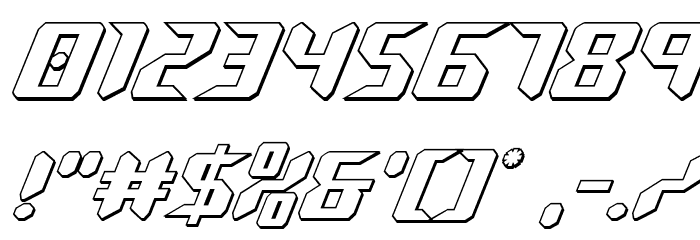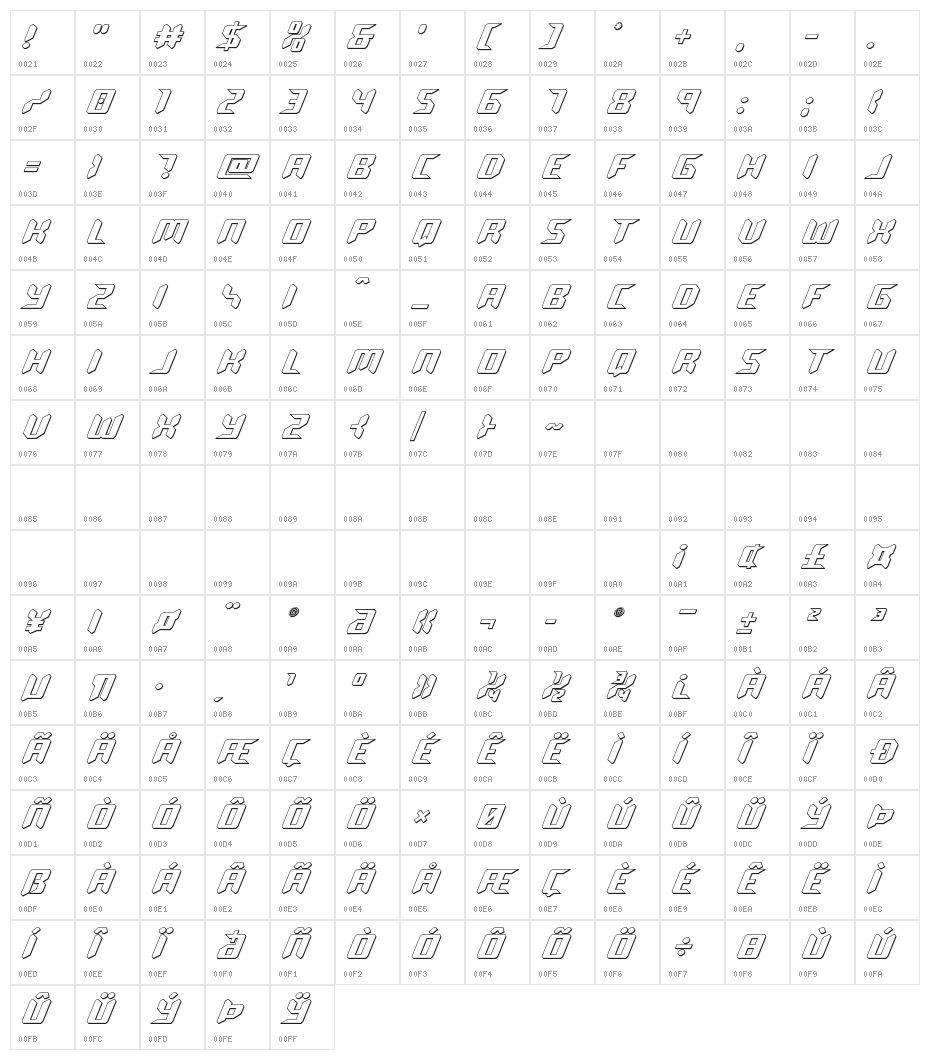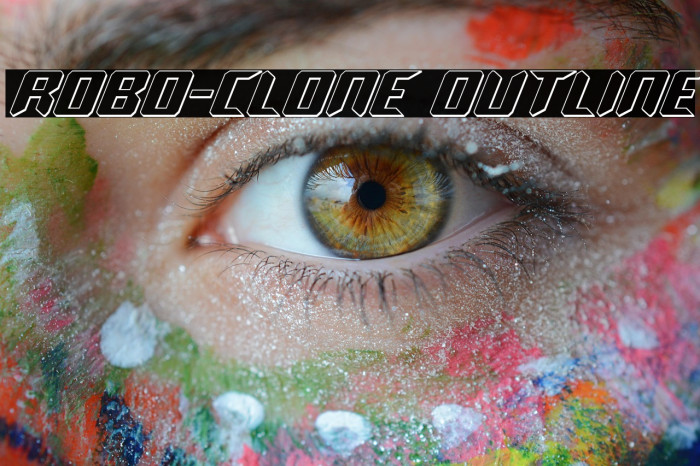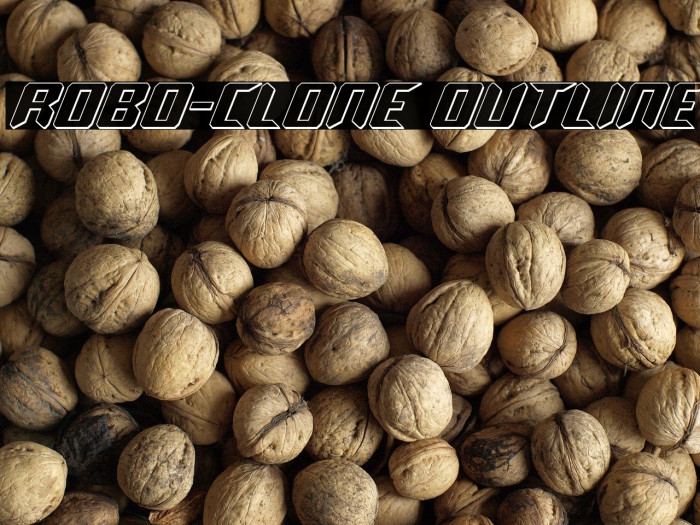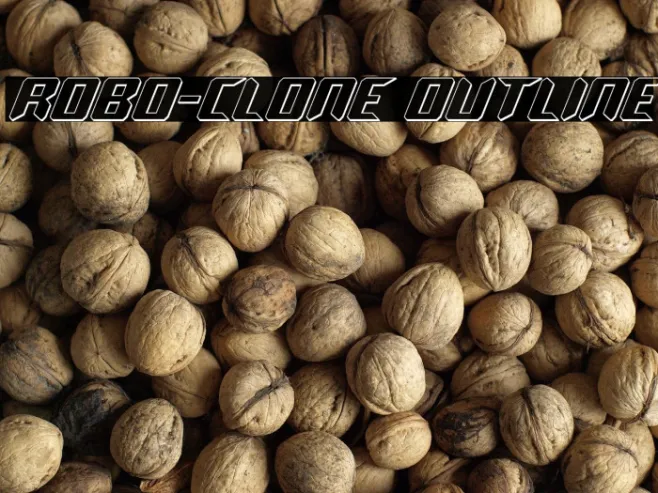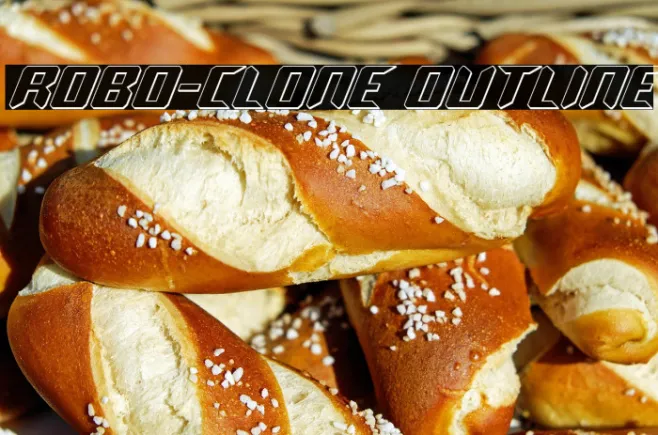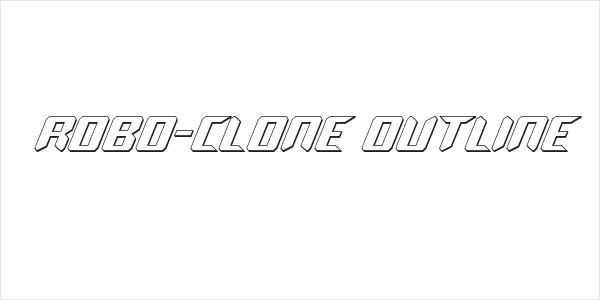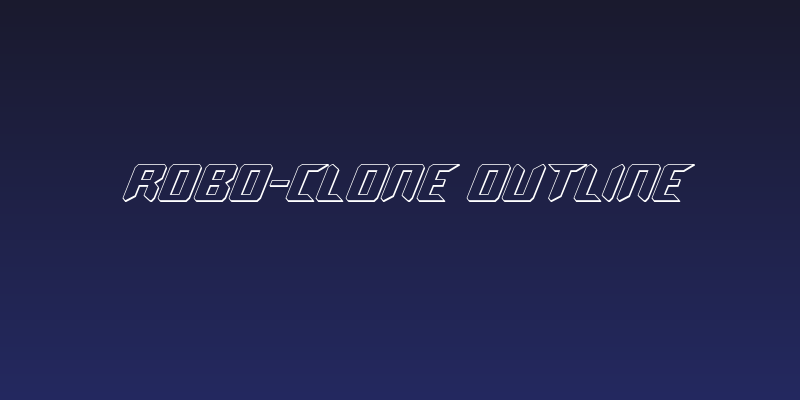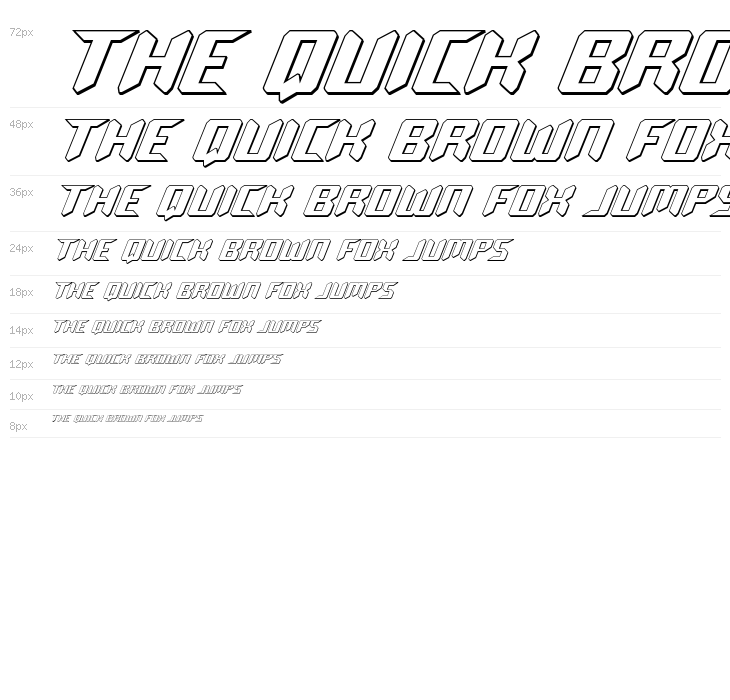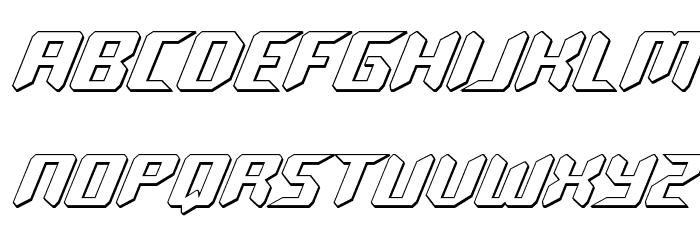
Robo-Clone Outline Font
Robo-Clone Outline Description
This font features a futuristic and angular design with a distinct outline style, giving it a three-dimensional appearance. The characters are bold and geometric, with sharp edges and a consistent slant that adds a dynamic feel. The uppercase and lowercase letters maintain a uniform height, contributing to a cohesive look. Numbers and special characters follow the same stylistic approach, ensuring versatility across different uses. The outlined nature of the font allows for creative layering and color play, making it ideal for eye-catching designs.
| Proposed Projects | Perfect for sci-fi themed projects, video game titles, posters, and branding that requires a modern and edgy look. |